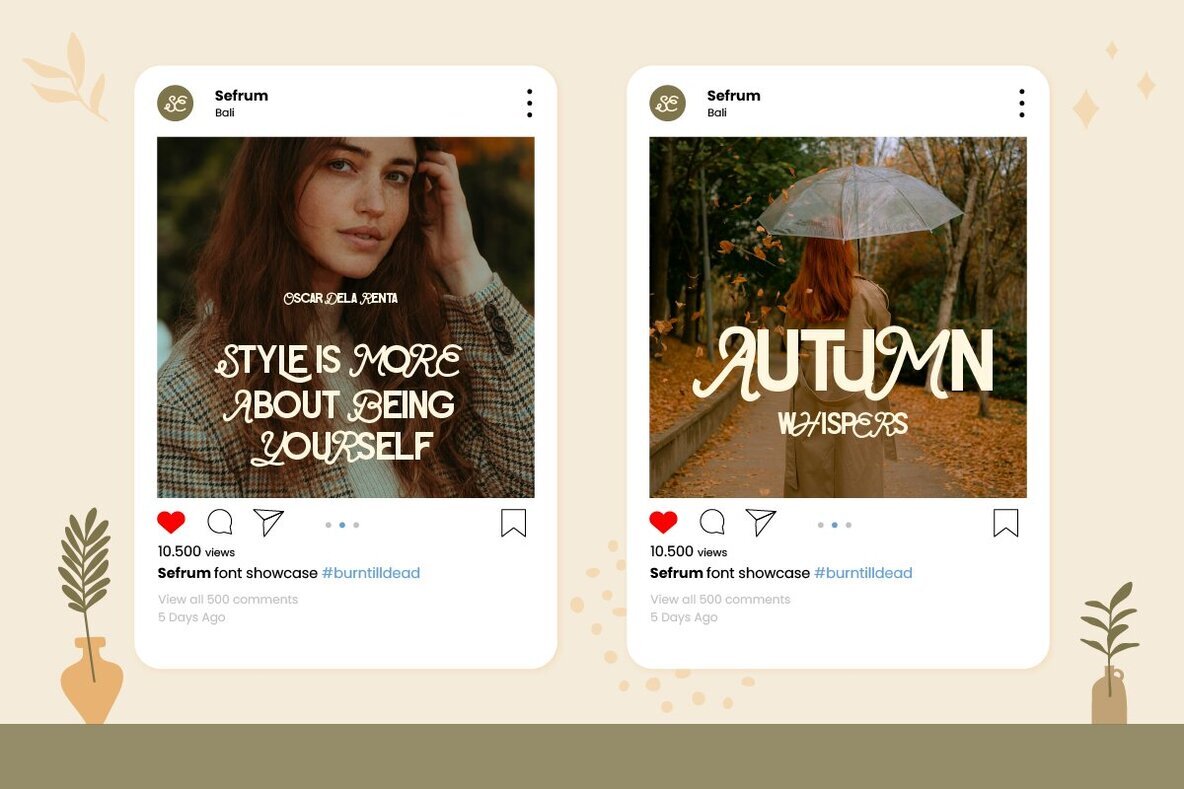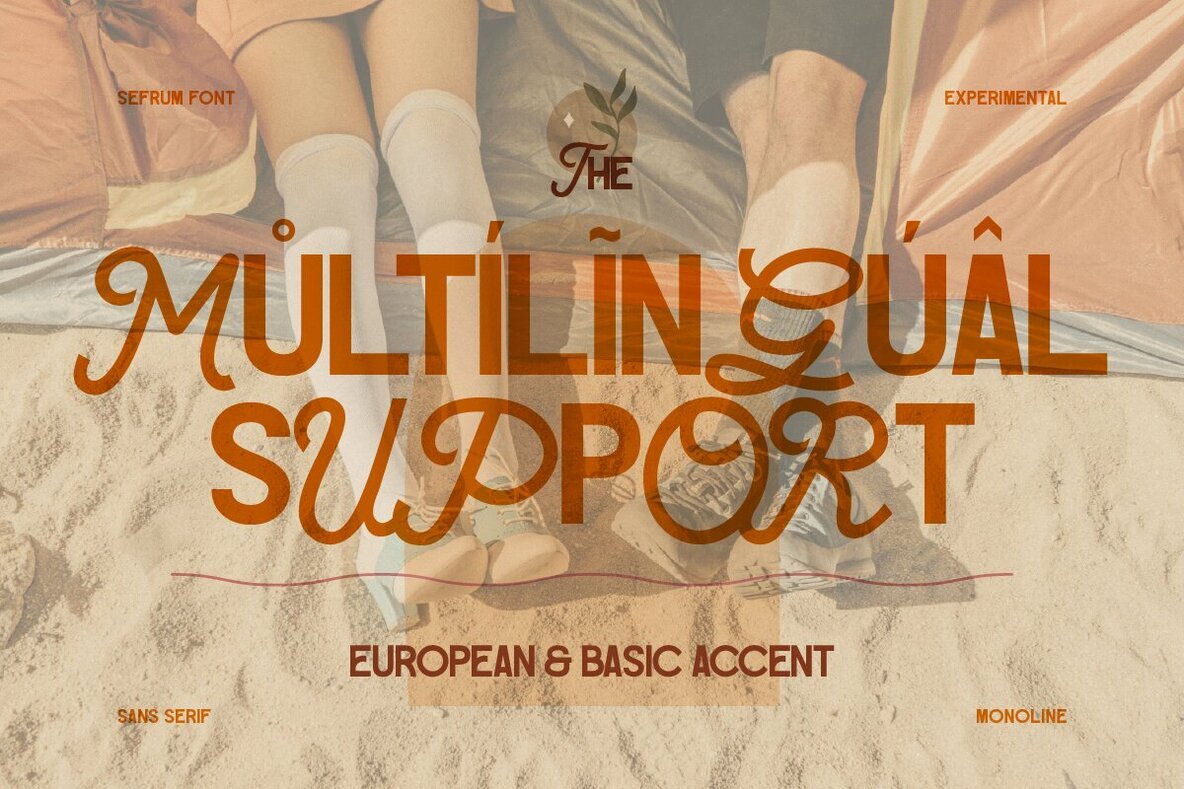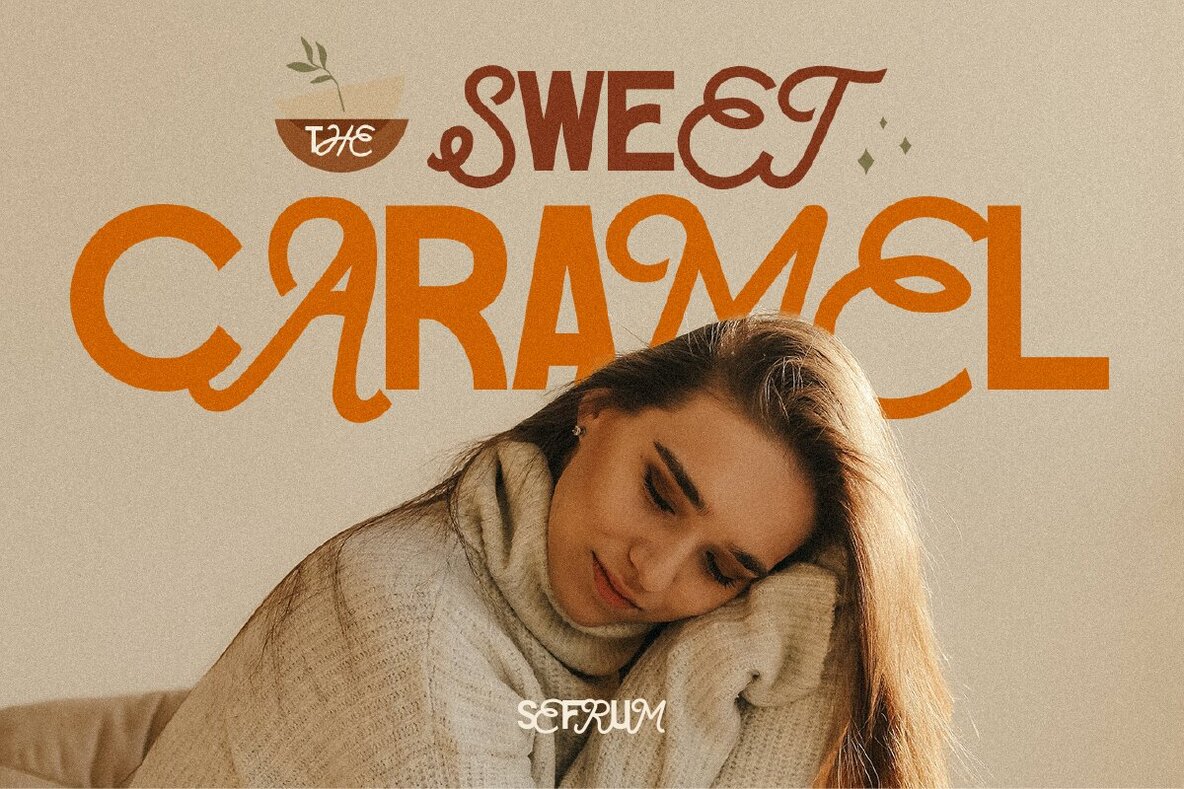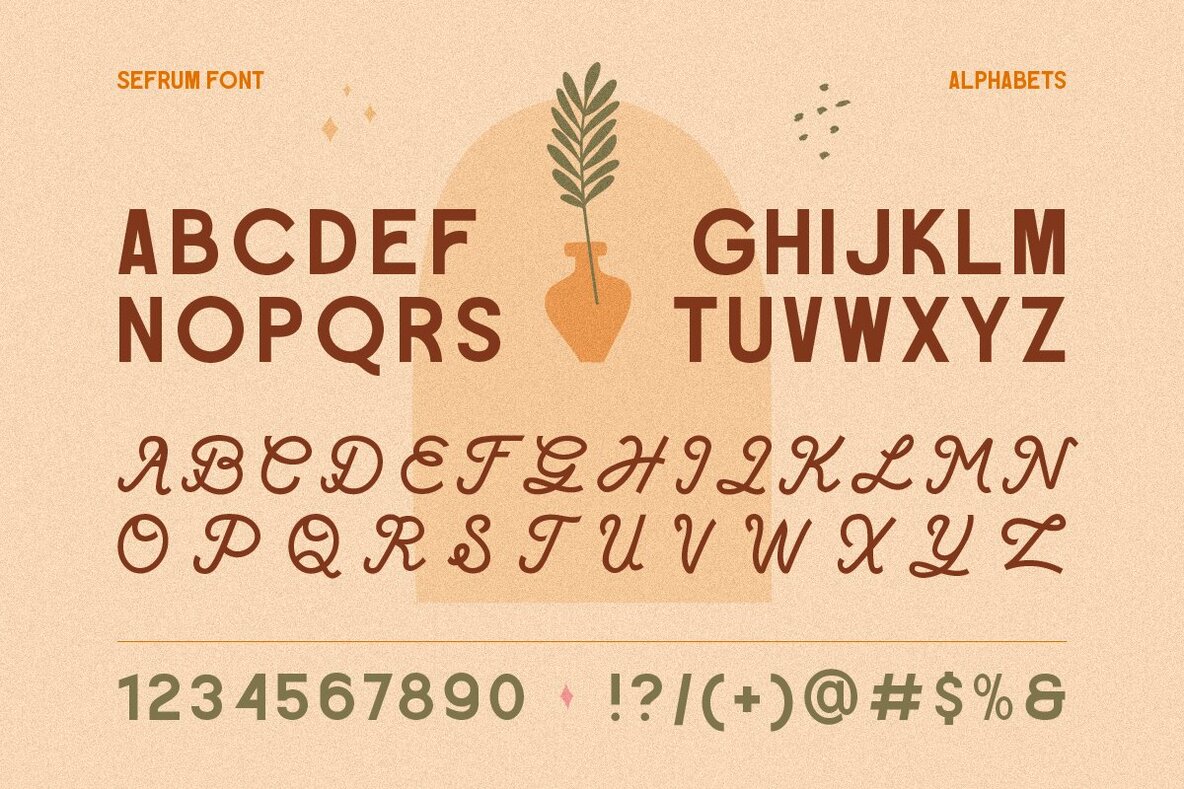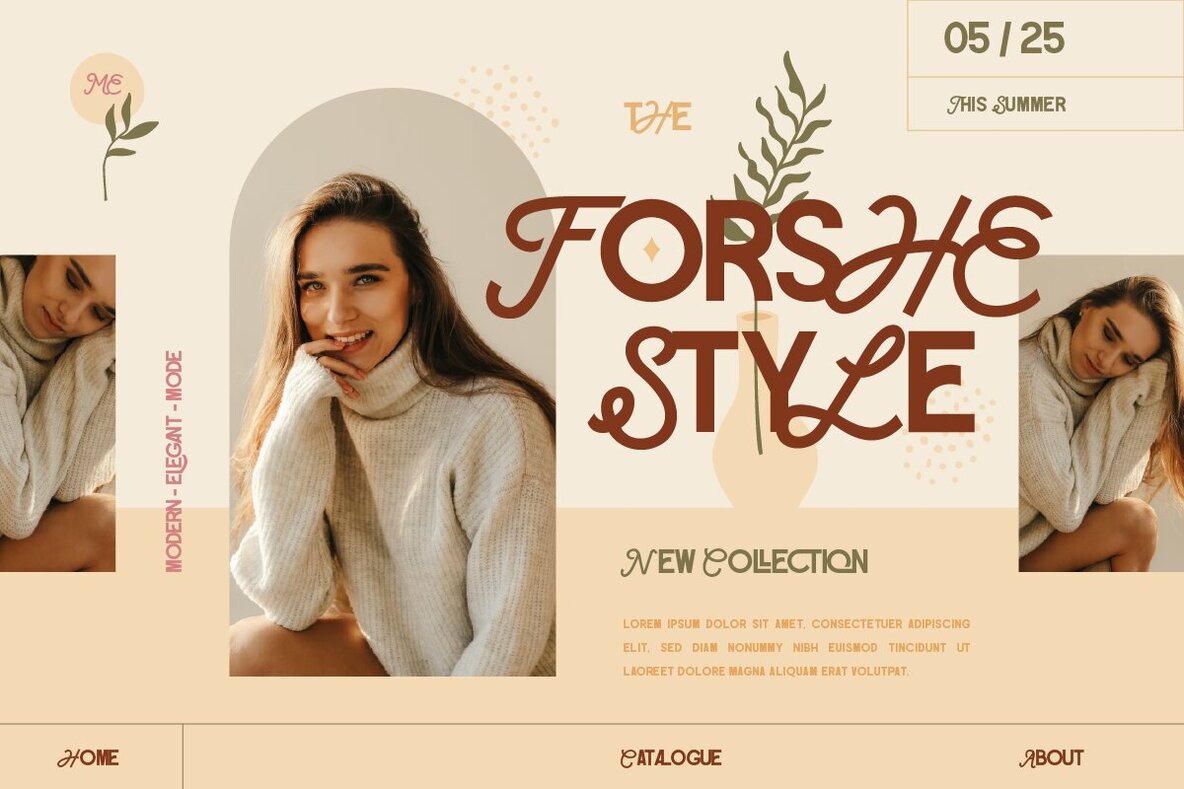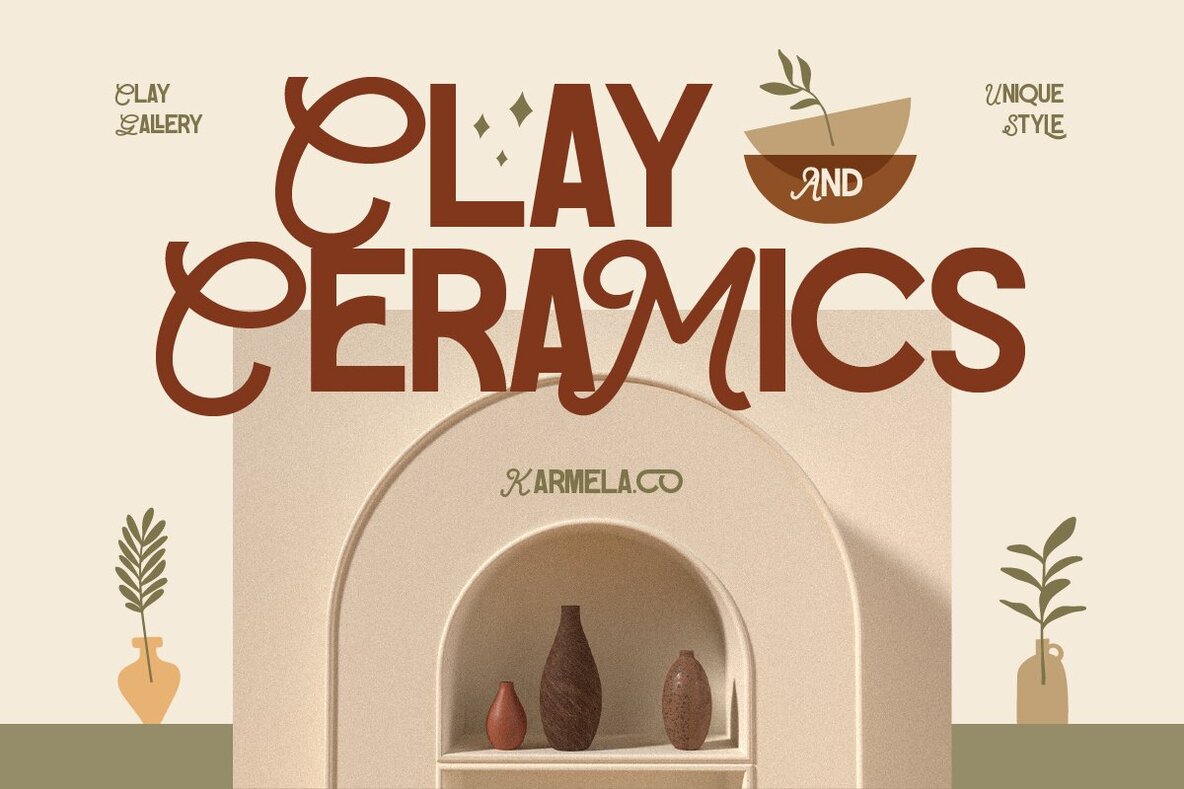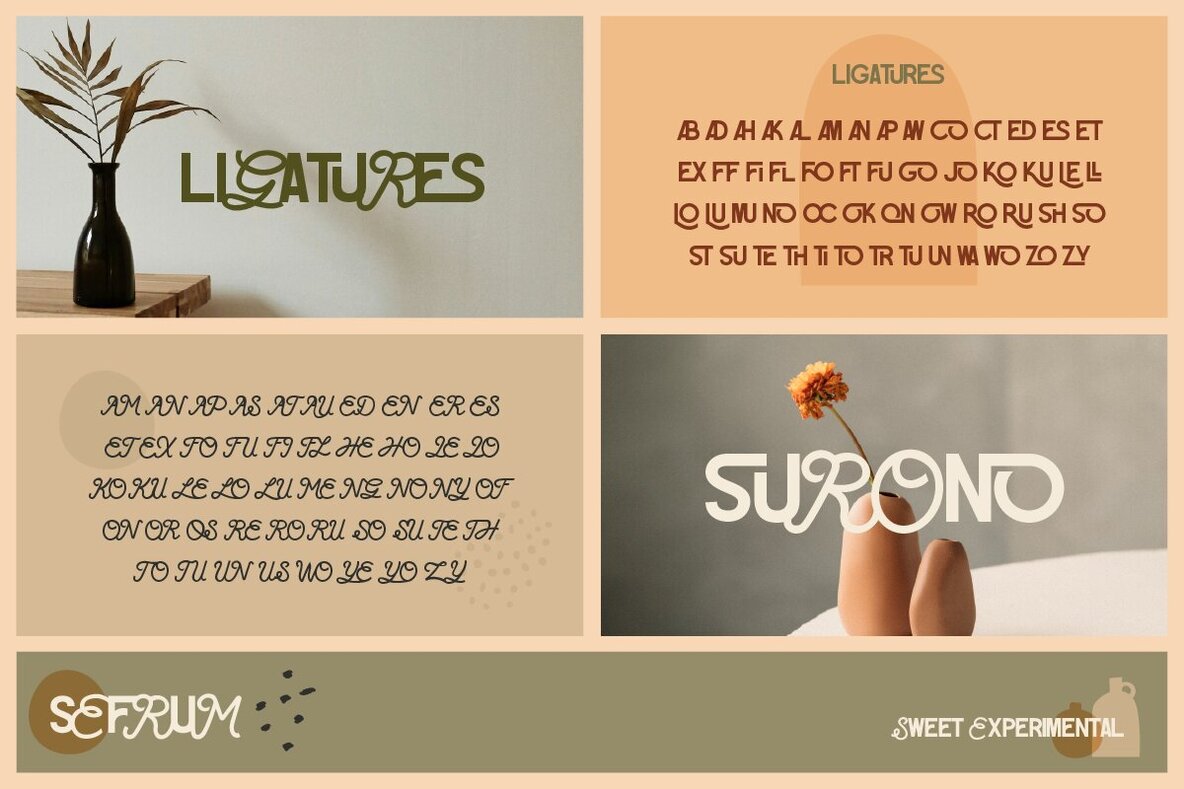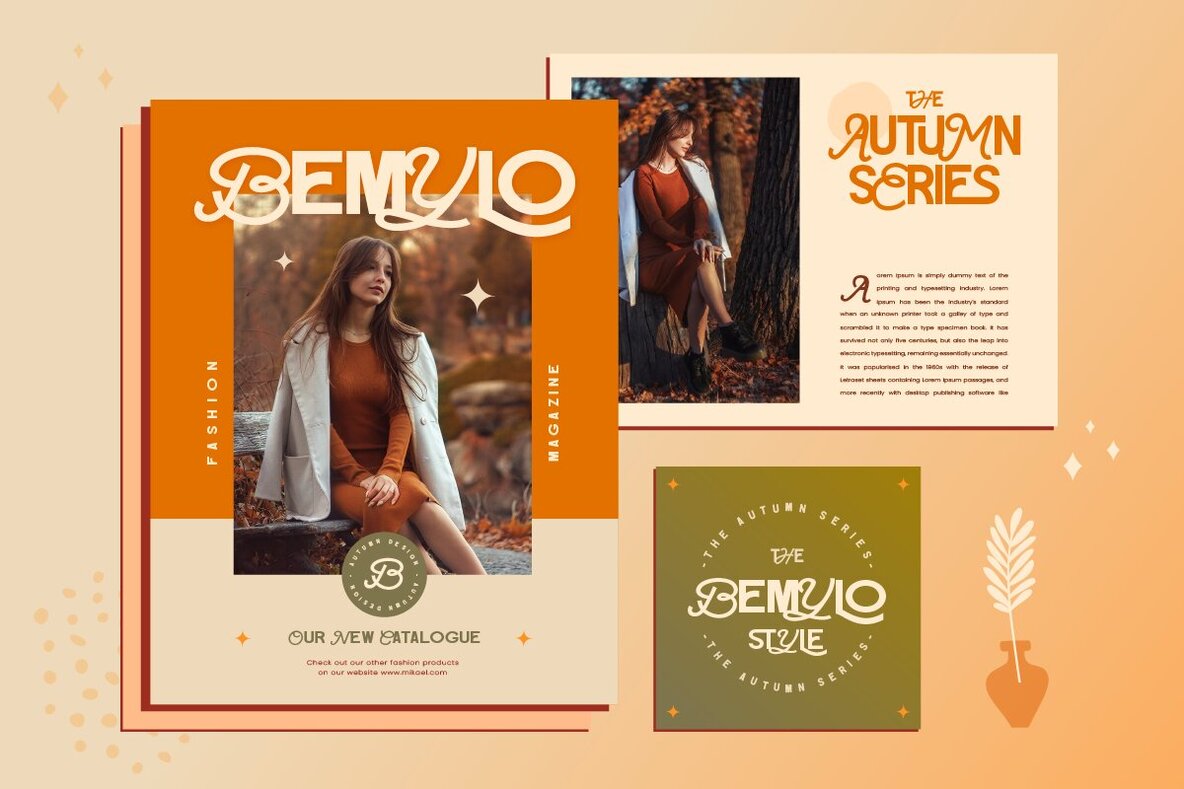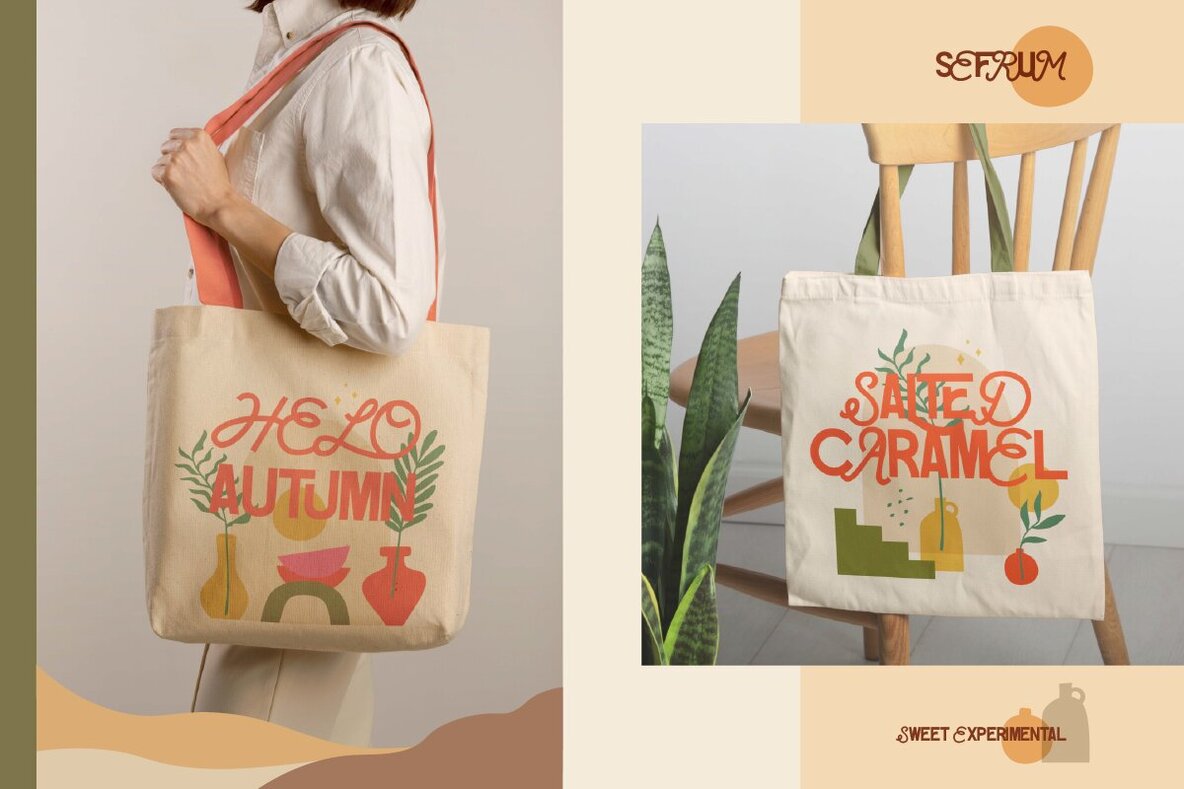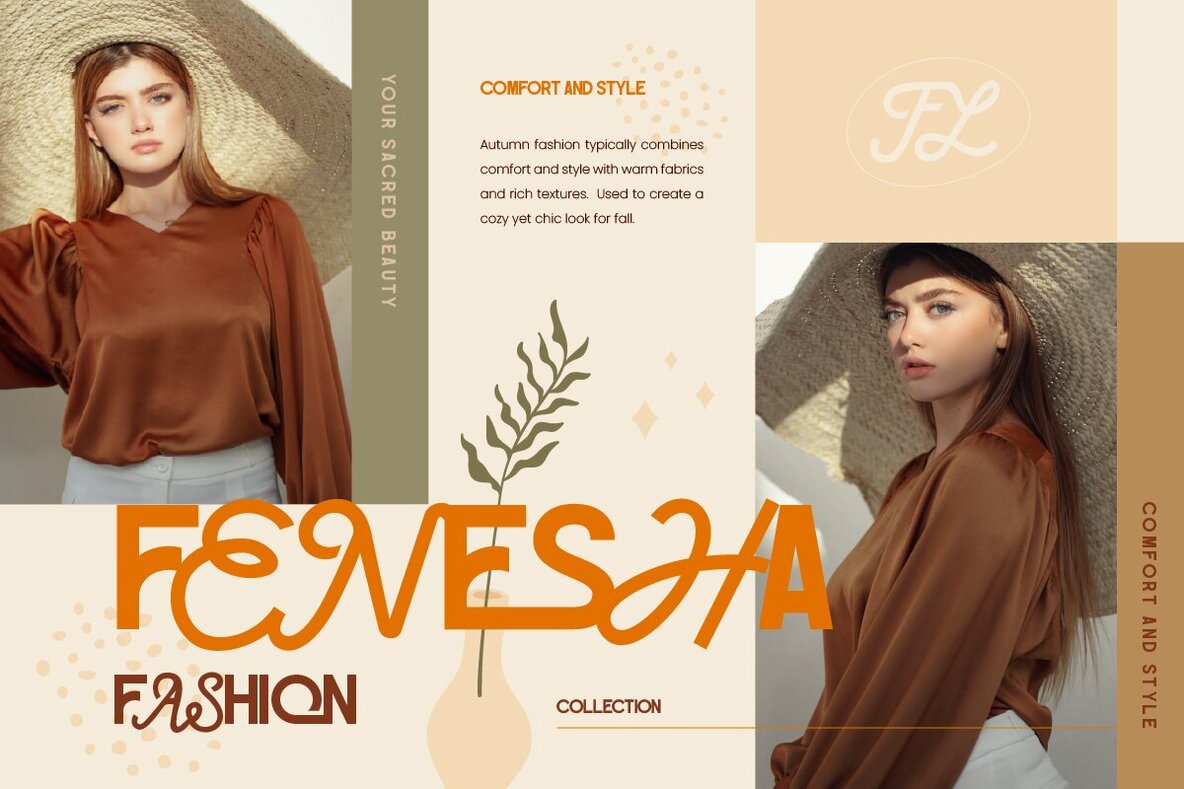
Sefrum Font
Sefrum
Proudly present, Sefrum, a hybrid typeface that blend sans serif and script. It creates a unique visual identity that balances modernity and elegance. The sans serif portion offers clean, geometric lines, providing clarity and readability, while the script elements introduce flowing, cursive strokes that add a touch of sweet, warmth and personality. Features: